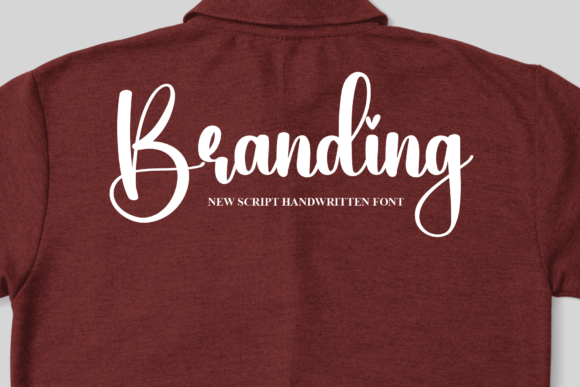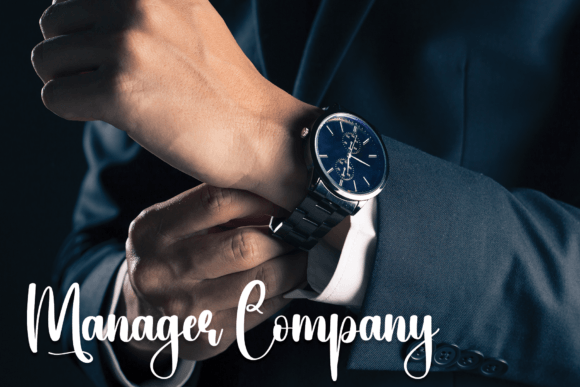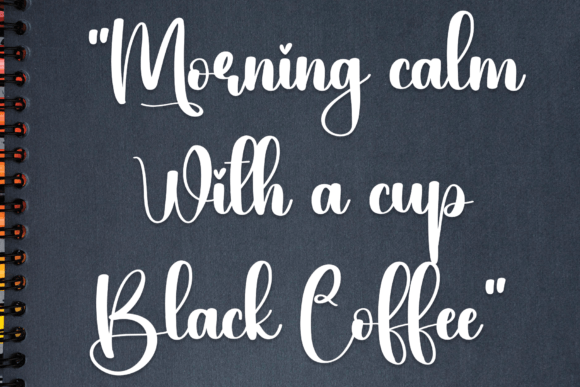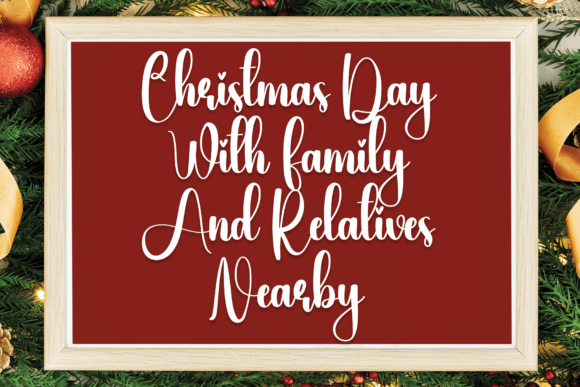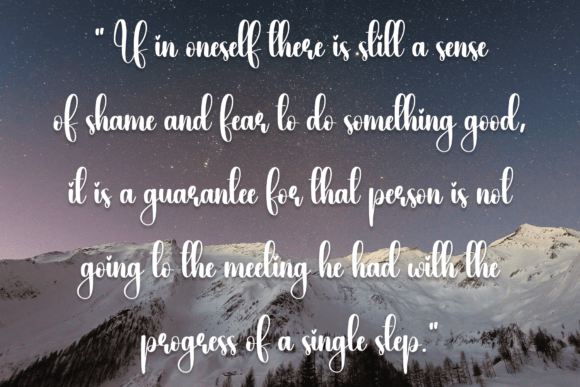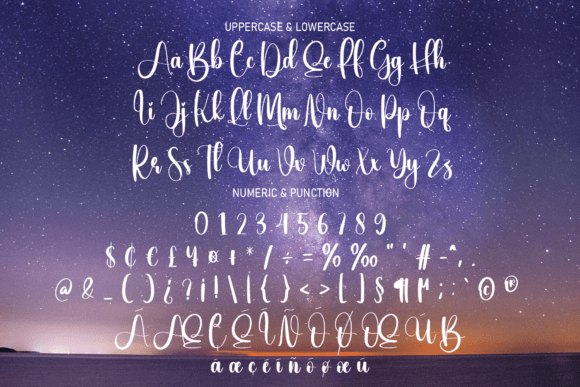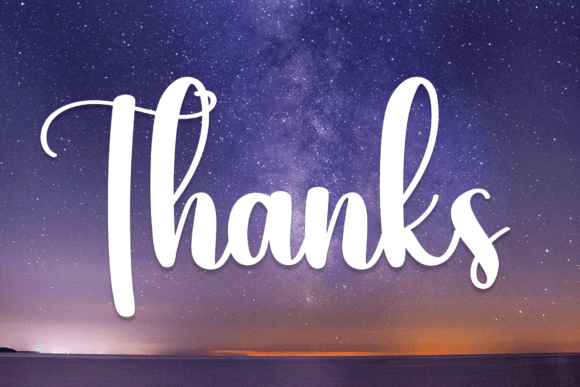
Light Moon Font
The Light Moon font features elegant and stylish handwritten letters that are perfect for a wide variety of creative projects. Its latest style makes it ideal for wall displays, wedding invitations, social media post logos, advertisements, product packaging, product designs, labels, photography, watermarks, invitations, stationery, and much more.
With smooth, flowing strokes, the Light Moon font adds a warm, handcrafted feel to any design. It balances beauty and clarity, ensuring your projects look professional and inviting. Whether you are creating romantic wedding invitations or modern branding materials, this font brings charm and sophistication.
The Light Moon font is versatile and suitable for both large headlines and smaller text elements. This makes it a great choice for logos, packaging, and designs. It will help your work stand out with an elegant handwritten style.
In summary, the Light Moonfont is a beautiful and versatile handwritten script perfect for weddings, branding, packaging, social media, and much more. Download it today and elevate your designs with elegance and warmth.